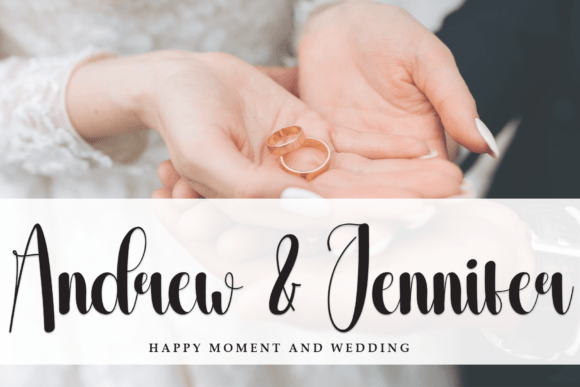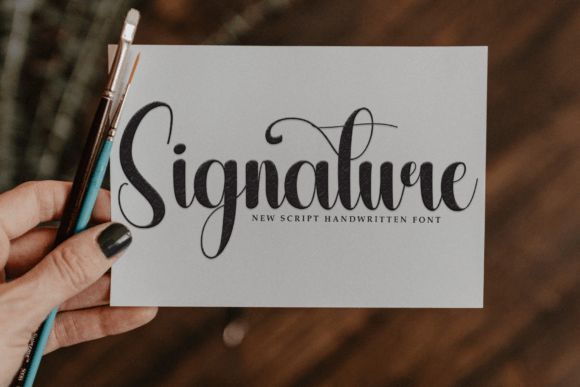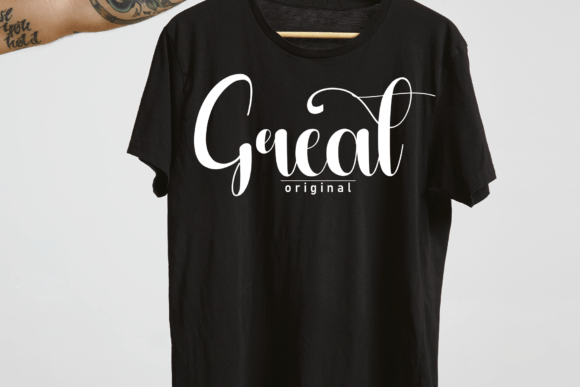
Introduction to Omitted Font
Do you ever find yourself lost in the process of brainstorming a new design, searching for that perfect font to bring your creative project to life? I’m sure many designers can relate to this feeling. As a designer myself, I’ve often found myself scouring through various design resources, only to come across a font that sparks inspiration and sets the tone for the entire project.
One such font that has caught my attention is the Omitted Font, a beautiful handwritten font that exudes elegance and sophistication. With its flowing lines and unique style, this font is perfect for designers looking to add a touch of personality to their work. Whether you’re working on a high-quality design or a simple creative project, the Omitted Font is a valuable resource that can elevate your design to the next level.
One of the standout features of the Omitted Font is its ability to be used on a transparent background, allowing the design to take center stage. This versatility makes it an excellent choice for designers who want to create visually appealing and professional-looking designs.
Omitted Font
- High-quality font design for creative projects, suitable as a design resource.
- Comes with a transparent background, allowing for easy customization and integration into various designs.
- Features a unique, modern design that sets it apart from other fonts in its category.
Honest Review: Omitted Font
As a designer, I’ve come across a multitude of fonts, but Omitted Font has caught my attention. With its sleek and modern design, it’s perfect for any creative project that requires a high-quality font.
- Transparency options: The Omitted Font comes with a transparent background, making it ideal for projects where you want to maintain the background image.
- High-quality design: The font is well-designed and looks great on a variety of devices and screens.
- Limited character set: The Omitted Font doesn’t come with a complete character set, which can be a limitation for designers who need to use special characters.
- No bold or italic options: While the font looks great in its regular weight, there are no bold or italic options available, which can limit its versatility.
Overall, I’m impressed with the Omitted Font. While it has some limitations, its high-quality design and transparent background make it a great resource for designers working on creative projects. With a free download available, it’s definitely worth checking out.
Omitted Font
Omitted Font is a versatile design resource that offers a high-quality font with a transparent background, perfect for creative projects.
Tips for Getting the Most Out of Omitted Font
Experiment with different font sizes and styles to achieve the desired look for your project. Combine Omitted Font with other design elements to create a unique and eye-catching design.
Omitted Font is suitable for a wide range of creative projects, including logos, graphics, presentations, and documents. It’s also a great resource for designers who want to add a touch of elegance and sophistication to their designs.
Alternatives to Omitted Font
The Great Vibes Font is a beautiful, elegant script font perfect for creative projects that require a touch of sophistication. It’s available for free download and comes in both regular and bold weights. When to use: For invitations, wedding stationery, and other design elements where a high-quality, cursive font is desired. How it compares to Omitted Font: While Omitted Font is known for its modern, sans-serif look, Great Vibes Font offers a more traditional, elegant feel.
The Alex Brush Font is a stunning, handwritten font ideal for designers who want to add a personal touch to their projects. It features a transparent background, making it easy to combine with other design elements. When to use: For design projects that require a unique, hand-written feel, such as logos, typography, and creative layouts. How it compares to Omitted Font: Unlike Omitted Font, which is a more modern, sans-serif font, Alex Brush Font has a more organic, handwritten look.